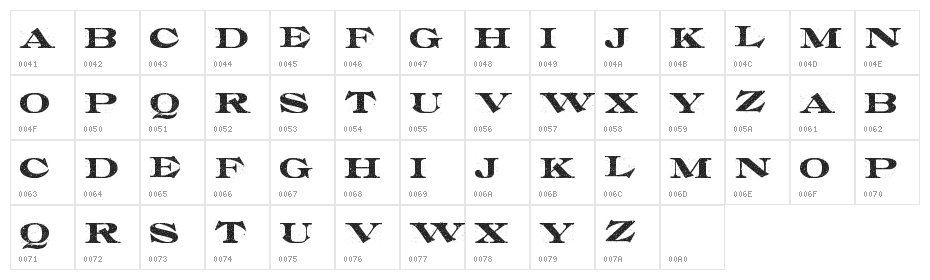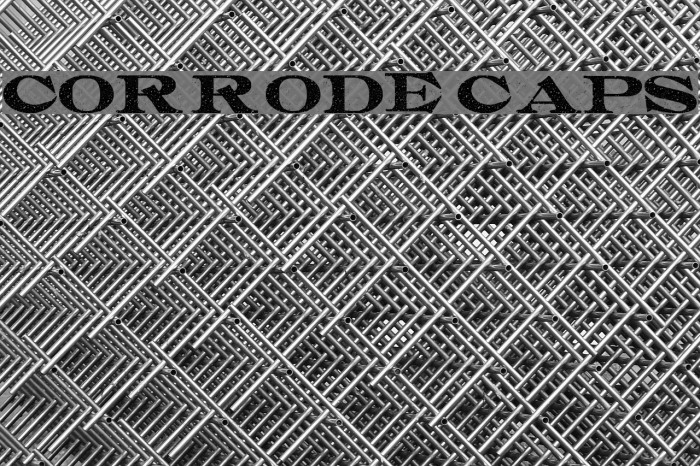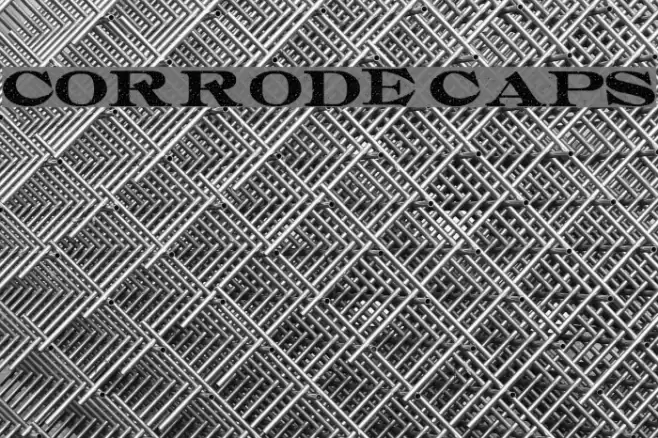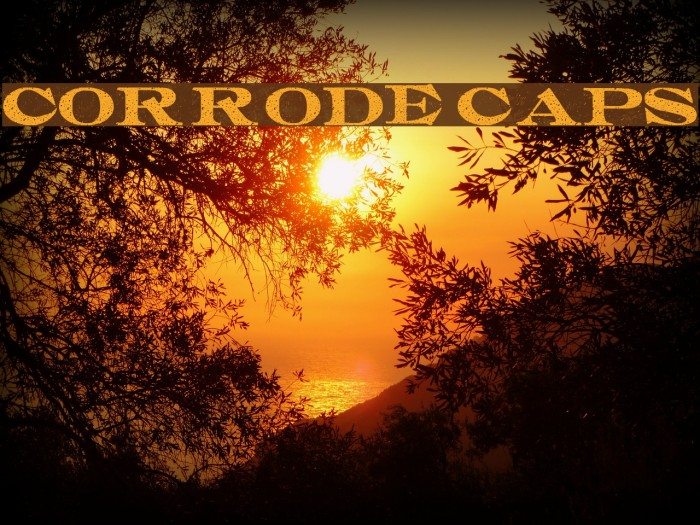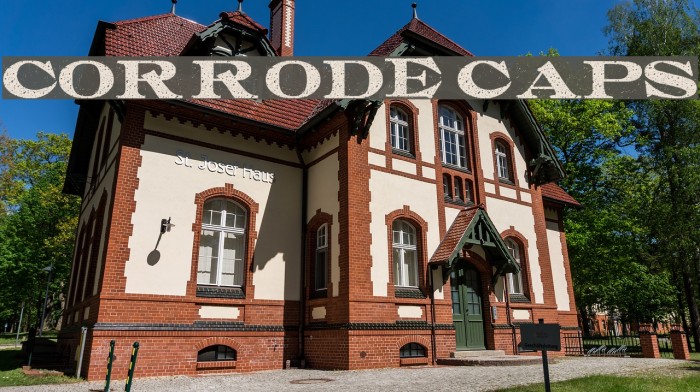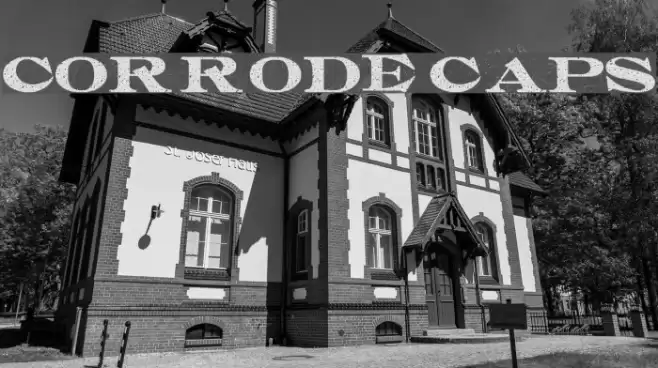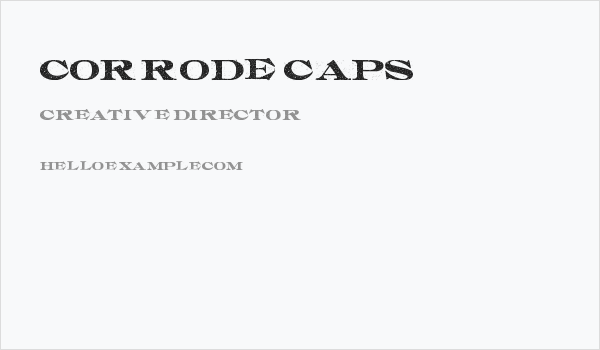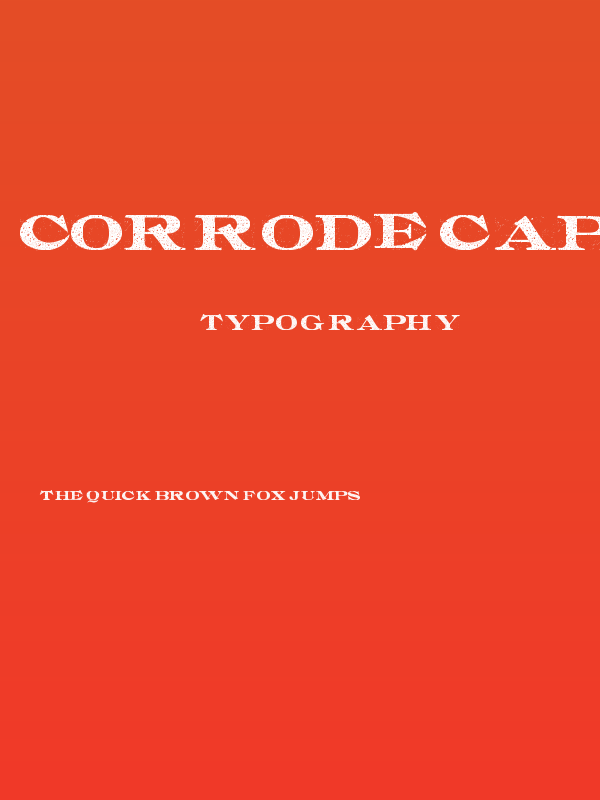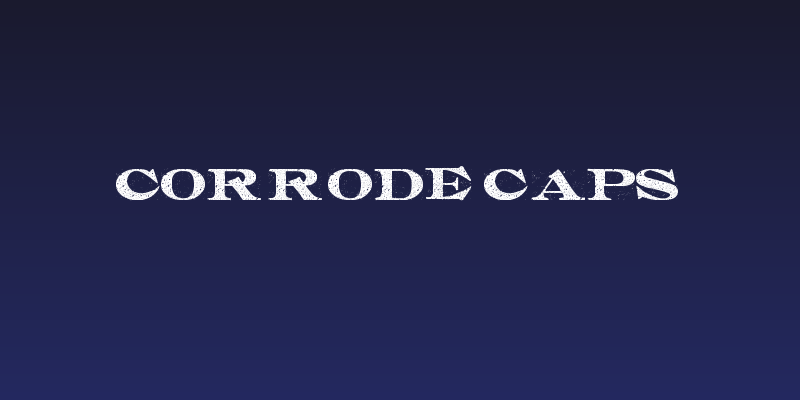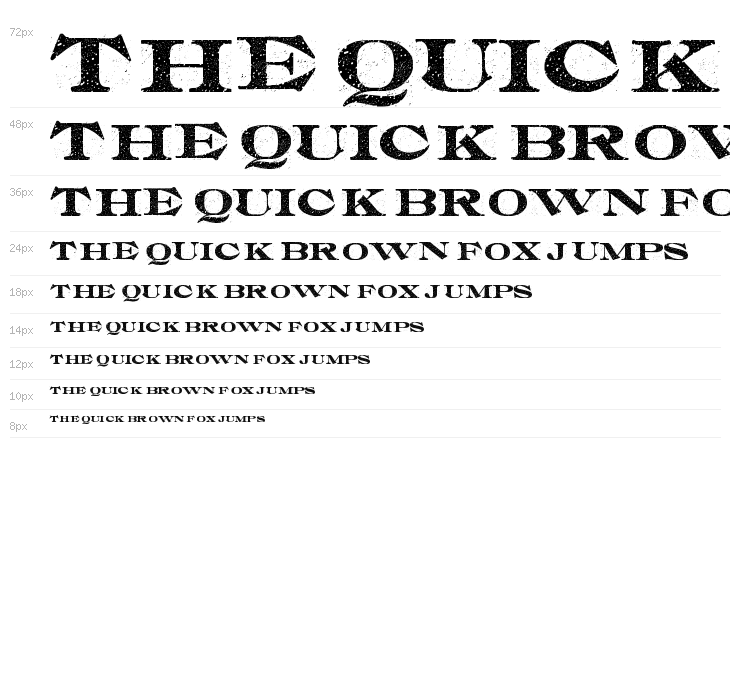
Corrode CAPS Font
Corrode CAPS Description
This font features a distressed, weathered appearance, giving it a unique, aged look. The uppercase letters are bold and impactful, with a rough texture that suggests corrosion or erosion. Each character maintains a consistent height and width, creating a uniform appearance despite the irregular surface texture. The font's style is reminiscent of vintage or industrial design, making it suitable for projects that require a rugged, historical, or gritty aesthetic. The boldness of the letters ensures they stand out, while the distressed detailing adds character and depth.